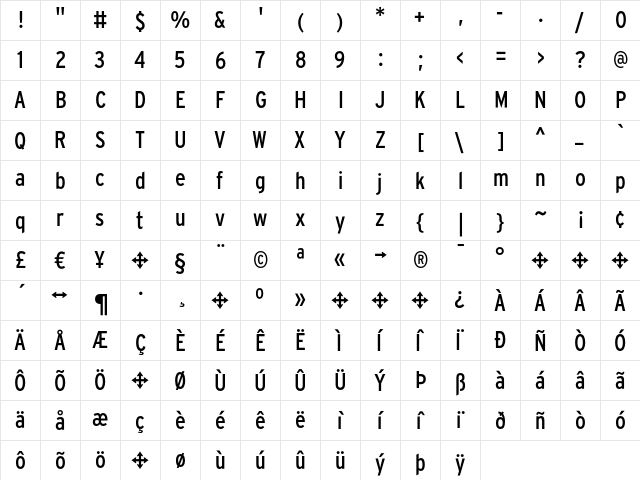
InterstatePlus Regular Cond
Design Context for InterstatePlus Typeface
InterstatePlus is a composed and adaptable typeface that performs quietly and consistently across a wide range of design contexts. Its narrow stance lets it pack a punch even in space-constrained designs.
Pro Tip: Pair InterstatePlus with a font of contrasting weight or personality to build a more expressive typographic hierarchy.